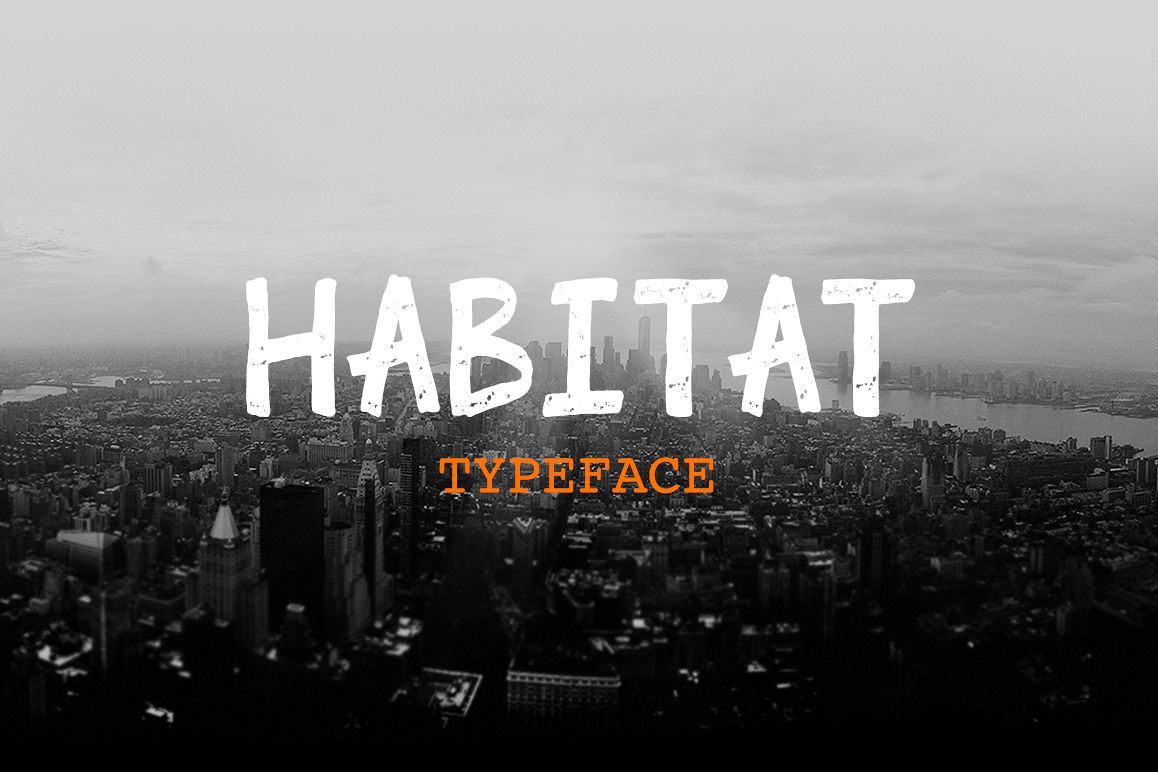
Habitat
Habitat-Regular
Habitat-Press
Habitat is modern marker font. With modern marker style this font will perfect for many different project ex: quotes, blog header, poster, wedding, branding, logo, fashion, apparel, letter, invitation, stationery, etc.
Habitat including full multiple language support.
Habitat Regular
Habitat Press